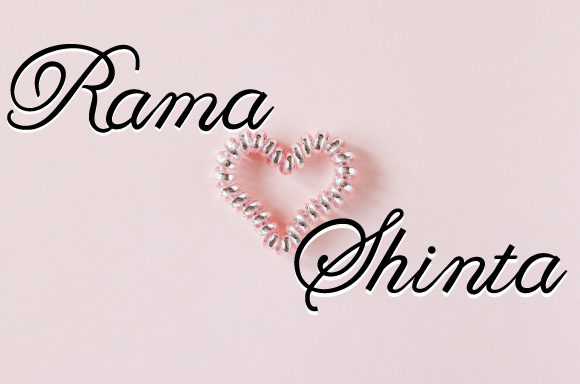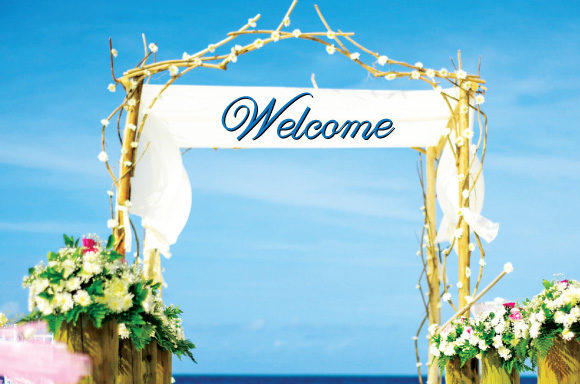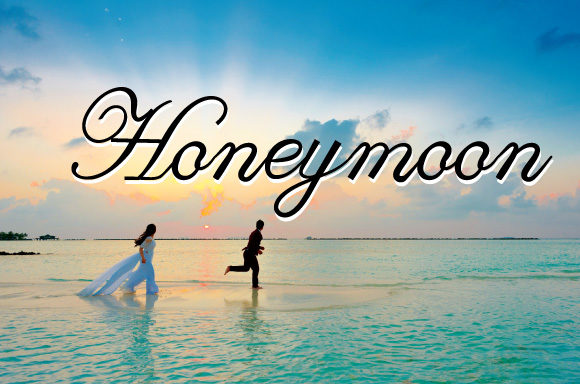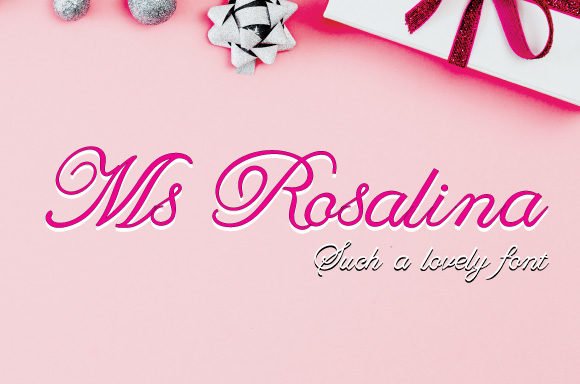
Introduction to Ms Rosalina Font
Ms Rosalina is a graceful and modern script font.
Dainty and joyful, this font will be ideal for writing wedding invitations, cards or any other design that may need a romantic, personalized touch .